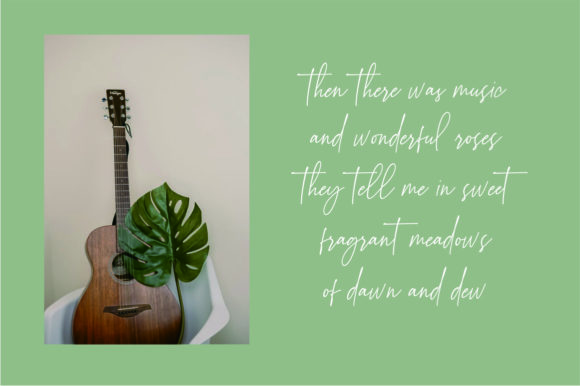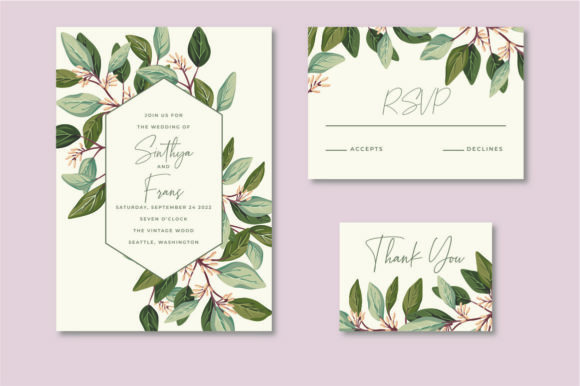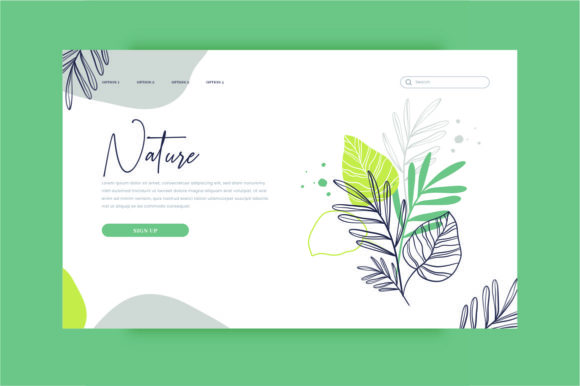
The Elleanor Font: A Fresh, Modern, and Stylish Handwritten Delight
I’ll never forget the moment I stumbled upon the Elleanor font. I was working on a branding project for a trendy boutique, and I was struggling to find the perfect handwritten font that would capture the essence of the brand. The client wanted something fresh, modern, and stylish, but not too over-the-top. As I scrolled through my font library, I stumbled upon Elleanor, and it was love at first sight! 💕
So, what makes Elleanor so special? Let’s dive into the good stuff! 😊
- ✨ Fresh and modern design that’s perfect for contemporary brands
- 💫 Beautifully crafted with attention to detail and a charming appeal
- 🎨 Versatile and adaptable to various design projects, from branding to packaging
Of course, no font is perfect, and Elleanor has a few minor quirks:
- 🤔 Some users might find the font a tad too slender for certain design applications
The Story Behind Elleanor
Elleanor was designed by a talented type designer who wanted to create a fresh, modern take on traditional handwritten fonts. Inspired by the elegance of calligraphy and the playfulness of handwritten scripts, Elleanor was crafted to be both stylish and approachable. With its beautiful letterforms and charming appeal, Elleanor has quickly become a favorite among designers and crafters.
| Font Name | Elleanor Font |
| Author | Fikryal Studio |
| What makes Elleanor so special? | Elleanor’s unique blend of modernity and elegance, combined with its high legibility and versatility, make it a standout font. |